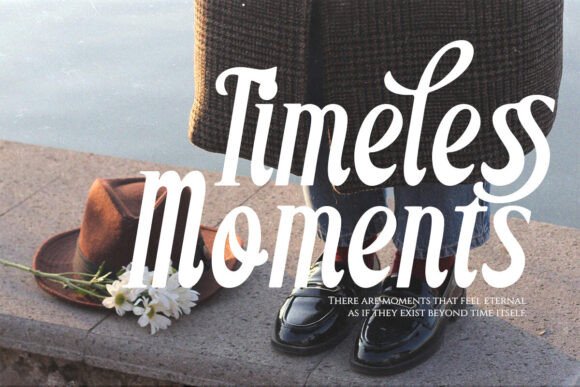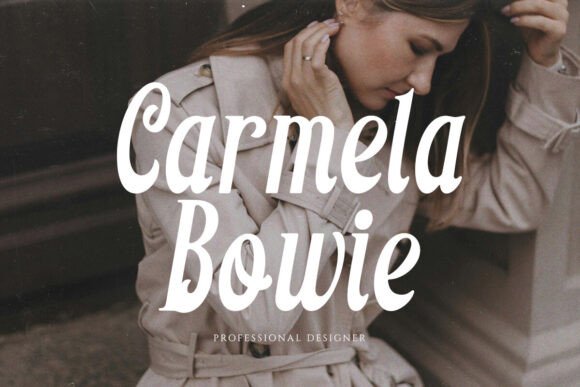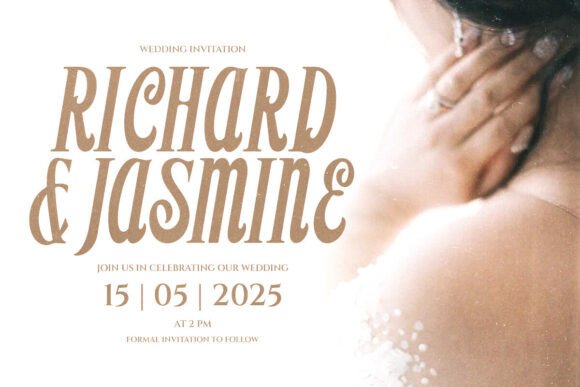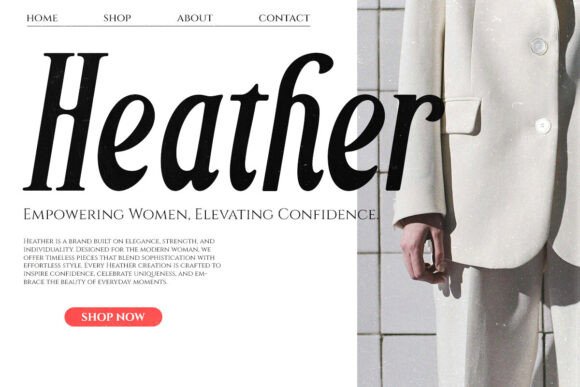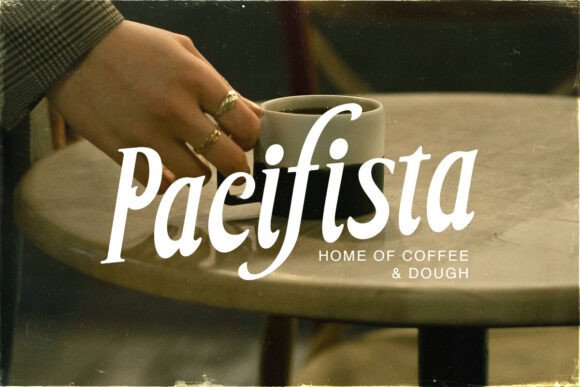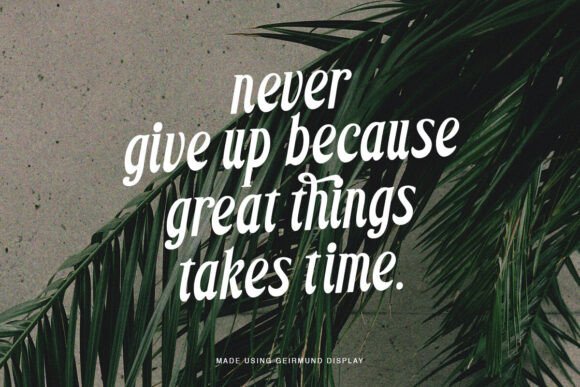
Introduction to Geirmund Font
Introducing Geirmund Display, a finely crafted typeface that blends elegance with vintage charm.
Designed with smooth curves and dynamic letterforms, this display serif is perfect for branding, editorial design, logos, packaging, and more Its refined yet expressive strokes make it ideal for projects that require sophistication with a bold touch.